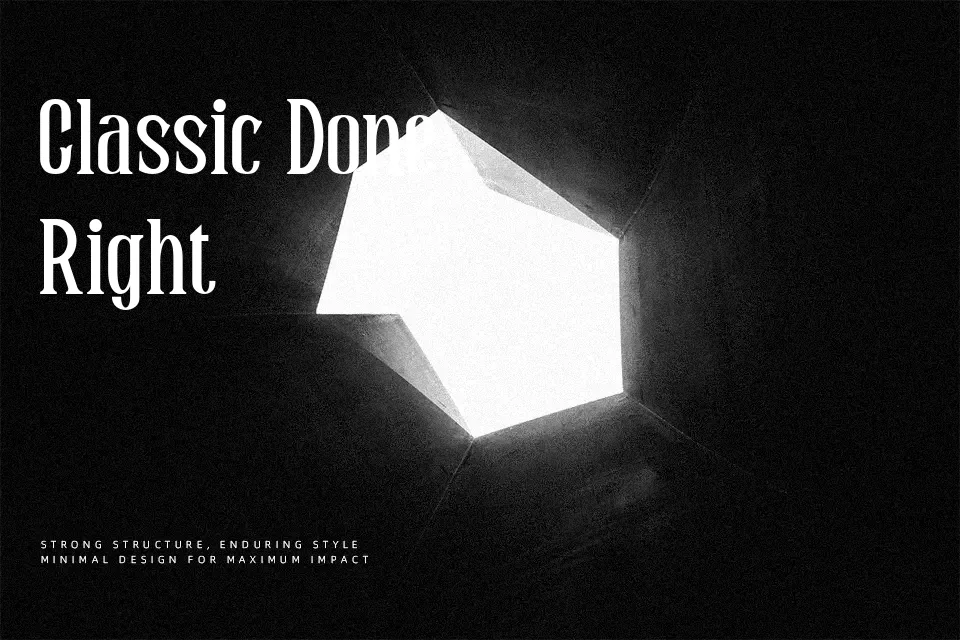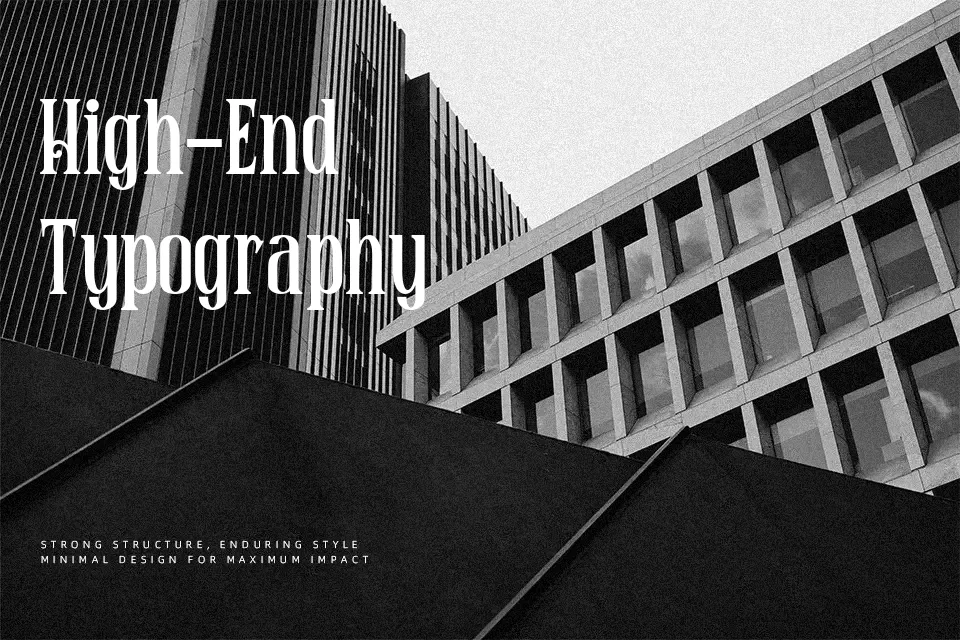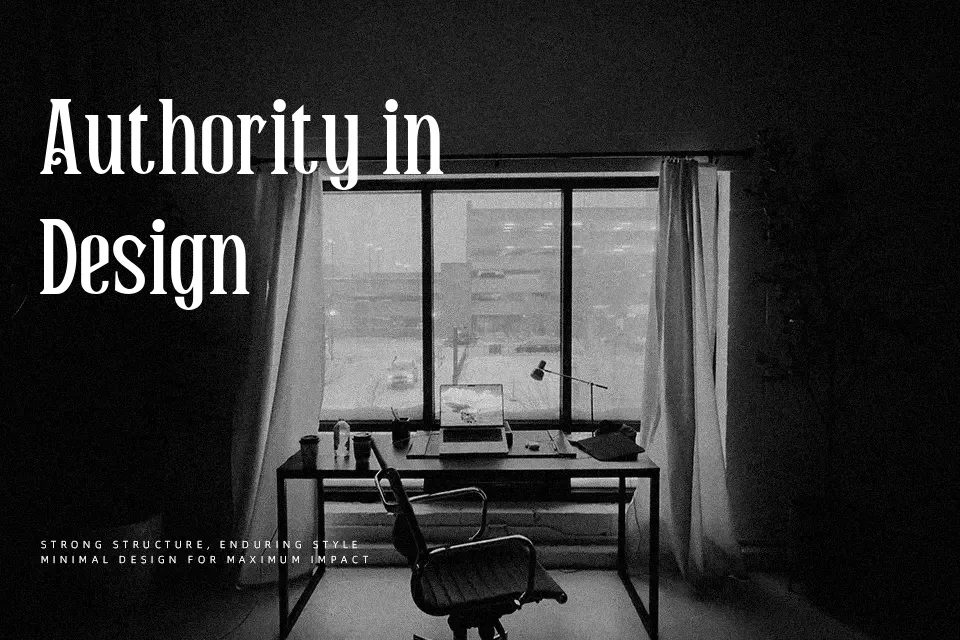
Billy Money Font
Designed by Alit Design
Billy Money is a striking display serif that beautifully channels the ornate, authoritative look of Victorian-era currency. Featuring firm, well-structured letterforms adorned with elegant swashes, its strokes carry a dimensional, engraved quality reminiscent of vintage banknotes. This typeface commands attention with a distinguished, masculine energy that elevates classic design concepts.
The aesthetic thrives when applied to premium beverage packaging, detailed tattoo lettering, or prestigious certificate layouts where a strong sense of heritage is desired. Conversely, its highly decorative nature means it struggles in modern minimalist contexts or long paragraphs of body text, where legibility quickly breaks down. Compared to standard serifs, Billy Money delivers a much more ornamental, historical presence that demands the spotlight.
– Vintage-style luxury packaging and beverage labels
– Classic barbershop branding and storefront signage
– Prestigious certificate headings and official documents
– Detailed tattoo lettering and bold apparel graphics
– Modern minimalist digital interfaces and clean tech branding
– Extensive paragraphs or small, dense body text
– Corporate presentations needing neutral typography
Perfect for headline, logo, and packaging, with a classic and decorative style.